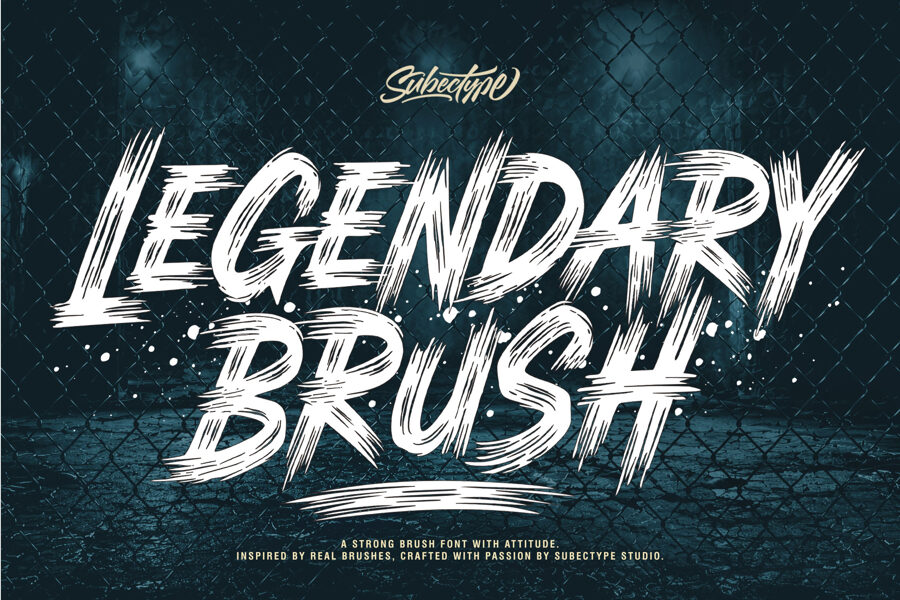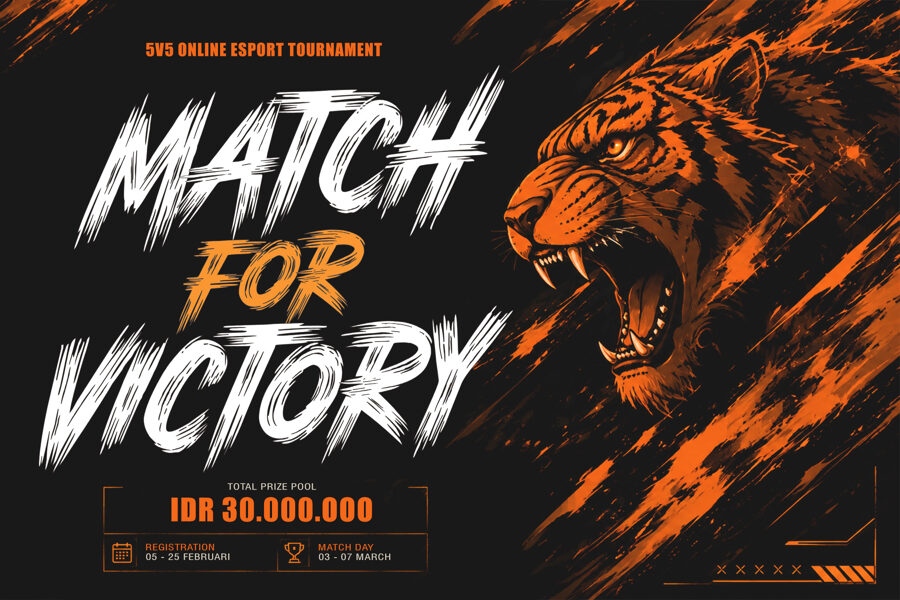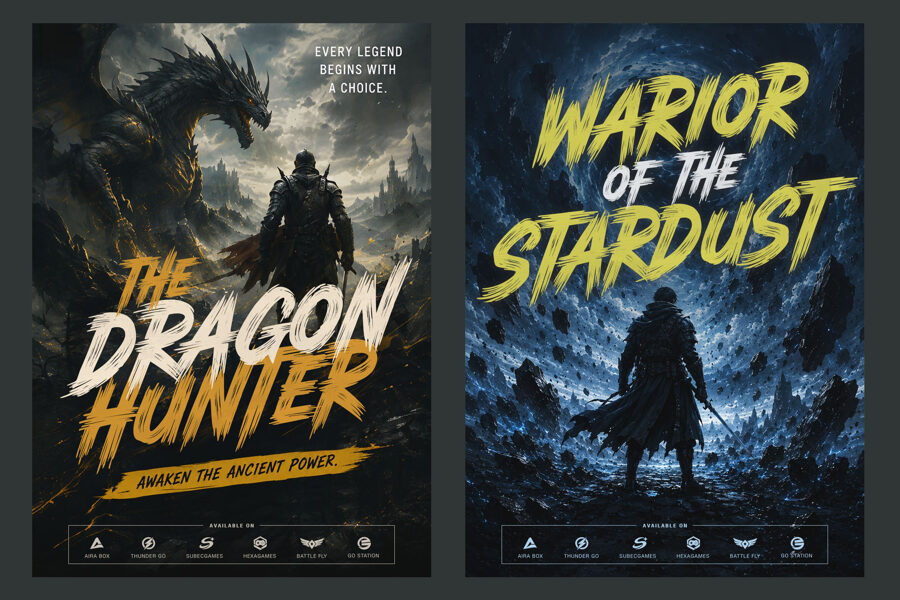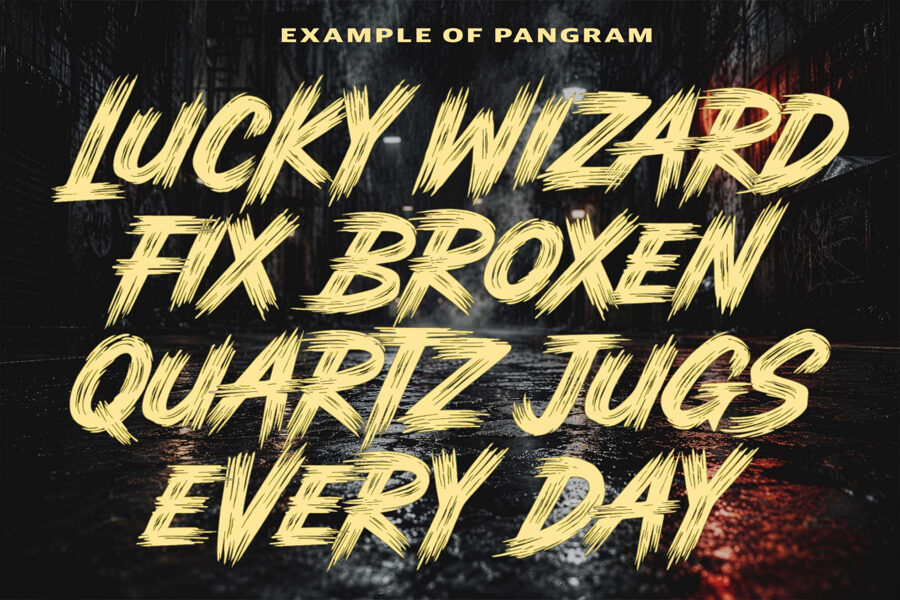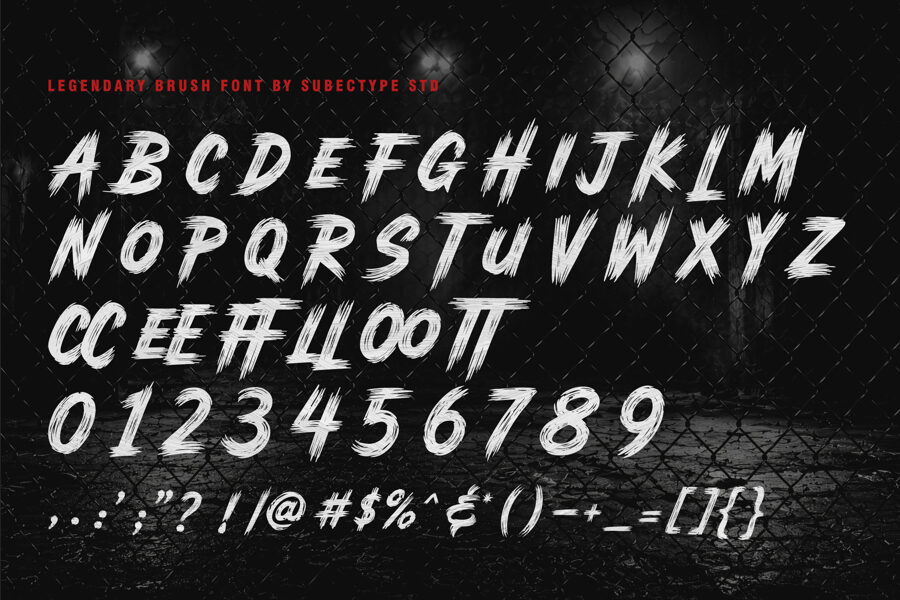
Legendary Brush Font
Introducing “Legendary Brush”, a handcrafted font that embodies the spirit of adventure. Inspired by city streets, action sports, and the great outdoors, it’s designed to make a bold statement. With its fearless and authentic style, it’s perfect for projects that need to grab attention, from branding and logos to posters and packaging.